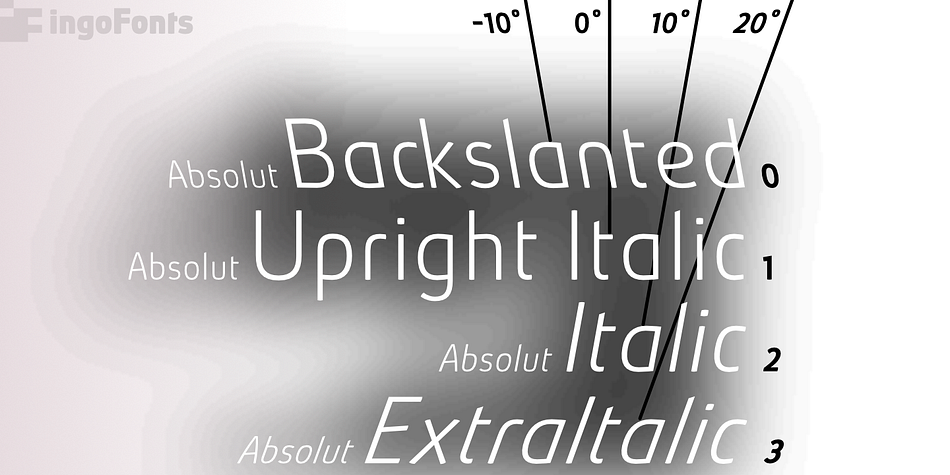
Absolut Pro
Designed by Ingo Zimmerman, Absolut Pro is a display sans, hand drawn and sans serif font family. This typeface has one hundred and sixty-seven styles and was published by ingoFonts.
The Absolut Pro is the modern typeface for the 3rd millenium. Reduced to the essentials — pure typeface: modern, uncompromising, prosaic, aesthetical. A superfamily with countless variants available as a variable font.
The character styles have removed themselves as far as possible from the original written form – and it’s high time the type in our font keeps up with the changing cultural situations… »Absolut« is a modern sans serif without compromise.
For example, n in »Absolut« is formed with just one stroke whereas in typefaces developed from writing, two strokes are united to form one character. »Absolut« does without such “complications.” The break with tradition is stretched even further: The character styles have been changed, especially noticeable on t, but r and f require a double take, too. We are already accustomed to these styles in advertising. But here’s what’s new: a text type which dares to take this pioneer step into the modern age.
The forms of »Absolut« are unconditionally modern. The characters have been reduced down to the basic idea of the letters. The historical burden surrounding type has been discarded. Gentle bowls on the stroke ends and on some inclinations make the sentence structure more attractive so that »Absolut« is also suitable for text type.
Additional functions can be activated and deactivated as OpenType-Features:
• Stylistic Alternates: replaces the letters a, g, u in each case with the alternative variant.
• Ligatures: replaces the letter pairs ch, ck, ff, fi, fl, ff, fj, ft, th, tt, tz, ffi, ffl with the respective letter combination.
• Tabular Numbers: replaces the normal numbers by means of tabular numbers with identical sign width.
• Fractions: replaces the glyph combinations 1/2, 1/3, 1/4 etc by the according fractions.
• Historical Forms: replaces s with ”long s“ and SS i.e., SZ with capital-ß.
• Slashed Zero: replaces the numeral 0 by the slashed variant
• Stylistic Set 1: replaces the »round« form of a by the »two storied« alternate form.
• Stylistic Set 2: replaces the »round« form of g by the »two storied« alternate form.
• Stylistic Set 3: replaces the »round« form of u by the »broken« alternate form.
• Stylistic Set 4: replaces the standard numerals [1—20] by circled numbers.
• Stylistic Set 5: replaces the standard numerals [1—20] by negative circled numbers.